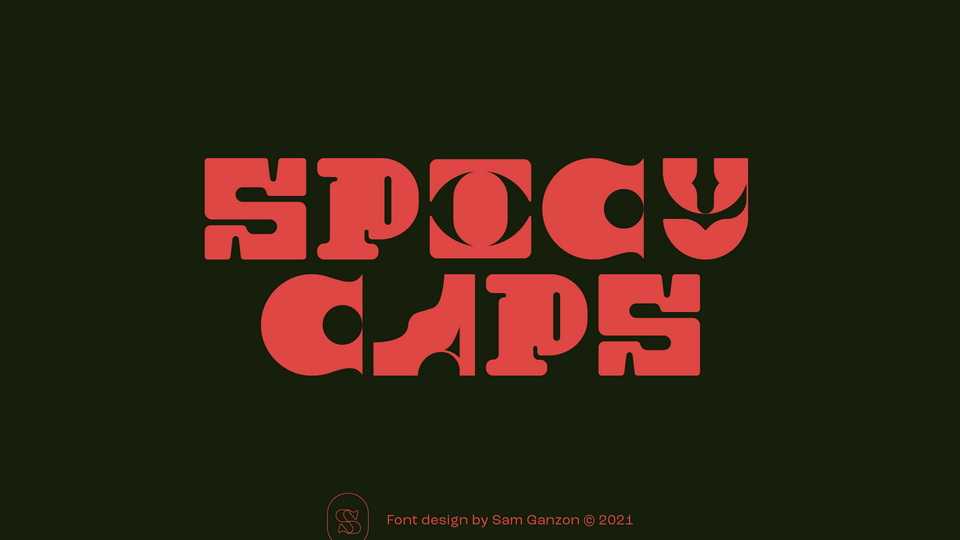
Download Spicy Caps font, an experimental display typeface that’s intended to be used for drop caps and headings to spice up your designs.
Designer: Sam Ganzon